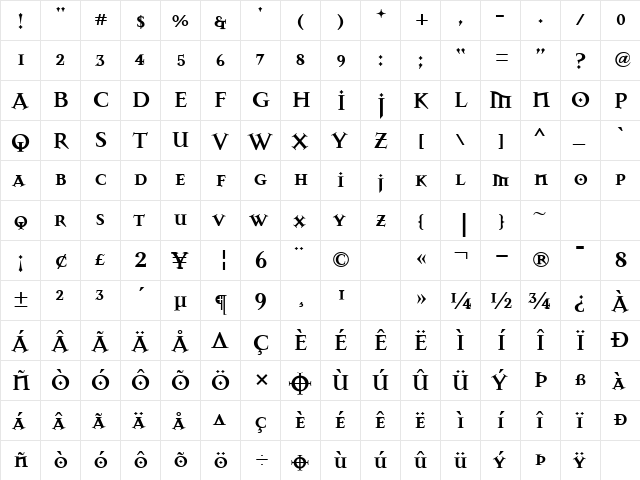
MasonSerifAlternateBold
Design Context for MasonSerifAlternateBold Typeface
MasonSerifAlternateBold brings classic typographic sensibility to the table — its serifs and measured letterforms reflect centuries of print heritage. The heavy weight commands attention and anchors typographic hierarchies.
Pro Tip: Use MasonSerifAlternateBold for editorial body copy and considered headline work. Pair with a neutral sans for UI elements or captions to create a classic hierarchy.